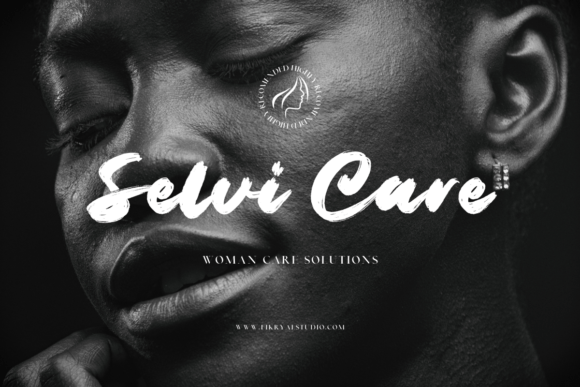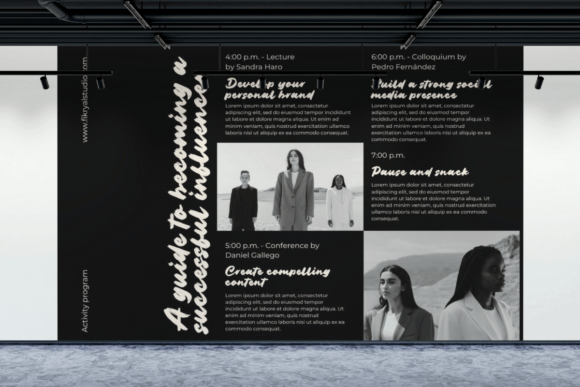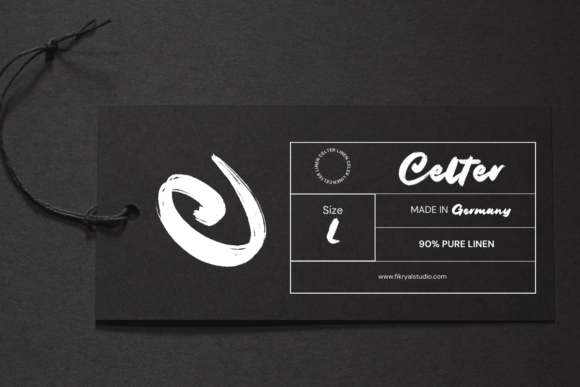
Introduction to Secret Director Font
Have you ever stumbled upon a font that sparks your creativity and sets your imagination ablaze? That’s exactly what happened to us when we discovered the enigmatic Secret Director Font. As designers, we’re always on the lookout for that special something that elevates our projects from good to great, and this font is it.
With its bold, hand-brushed strokes and elegant curves, the Secret Director Font is a game-changer for any creative project. Whether you’re working on a high-quality branding campaign or designing an invitation for a special occasion, this font is sure to add a touch of sophistication and intrigue to your work. And the best part? It’s now available as a free download, making it a valuable resource for designers who want to take their designs to the next level.
So, what are you waiting for? Dive into the world of the Secret Director Font and discover the secrets it holds. With its transparent background and high-quality design, this font is sure to be a design resource you’ll return to again and again.
Key Features of Secret Director Font
- High-quality, professional design suitable for various creative projects
- Transparent background, allowing for seamless integration with any design resource
- Unique, stylish design elements that can add a touch of sophistication to any project
- Perfect for designers, artists, and creatives looking for a high-quality, free design resource
Honest Review: Secret Director Font
As a designer, I’m always on the lookout for high-quality design resources to enhance my creative projects. Recently, I stumbled upon the Secret Director Font and was excited to give it a try.
Here’s what I like about it:
- ✨ Unique and modern design that sets it apart from other fonts
- ✨ High-quality vector files that make it perfect for printing or digital use
- ✨ Transparent background, making it easy to customize and use in any design
- ⚠️ Limited character set, which may not be suitable for longer texts
- ⚠️ Some users may find the font too bold or overpowering for certain designs
Overall, I think the Secret Director Font is a solid addition to any designer’s toolkit. Its unique design and high-quality files make it a great resource for creative projects. While it may have some limitations, I believe it’s worth considering for your next design project. And the best part? It’s available for a free download, making it a great value for designers on a budget.
The Secret Director Font is a high-quality design resource that can elevate any creative project. With its transparent background, this font is perfect for designers looking for a versatile and stylish option.
To get the most out of the Secret Director Font, experiment with different font sizes, colors, and combinations. You can also use it in conjunction with other design elements, such as images and shapes, to create a unique and eye-catching design.
The Secret Director Font is perfect for a variety of design projects, including:
- Graphics and infographics
- Web design and digital marketing materials
Alternatives to Secret Director Font
Great Vibes Font is a beautiful, high-quality script font ideal for creative projects that require a touch of elegance. It’s perfect for designs with a transparent background, allowing the text to take center stage. When to use: wedding invitations, event promotions, and branding materials.
Compared to Secret Director Font, Great Vibes Font offers a more refined and sophisticated look, making it suitable for high-end design projects.
Alex Brush Font is a stunning script font that works well for a wide range of design applications, from creative projects to corporate branding. Its elegant and refined look makes it perfect for designs with a transparent background. When to use: marketing materials, product labels, and packaging designs.
What is the resolution of the Secret Director Font’s transparent background?
The Secret Director Font features a transparent background, allowing for seamless integration into various design elements. The resolution of the transparent background is 300 DPI, ensuring high-quality results for your creative project.